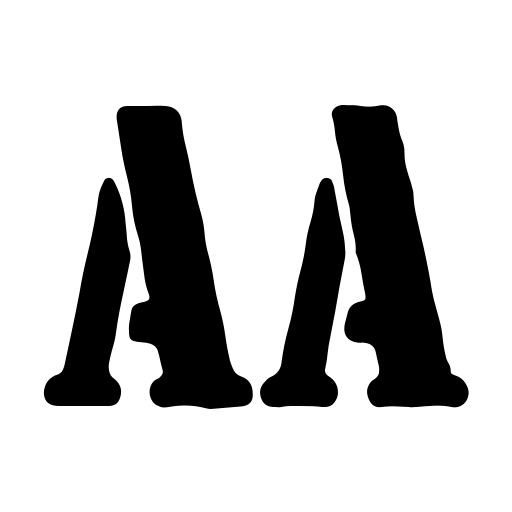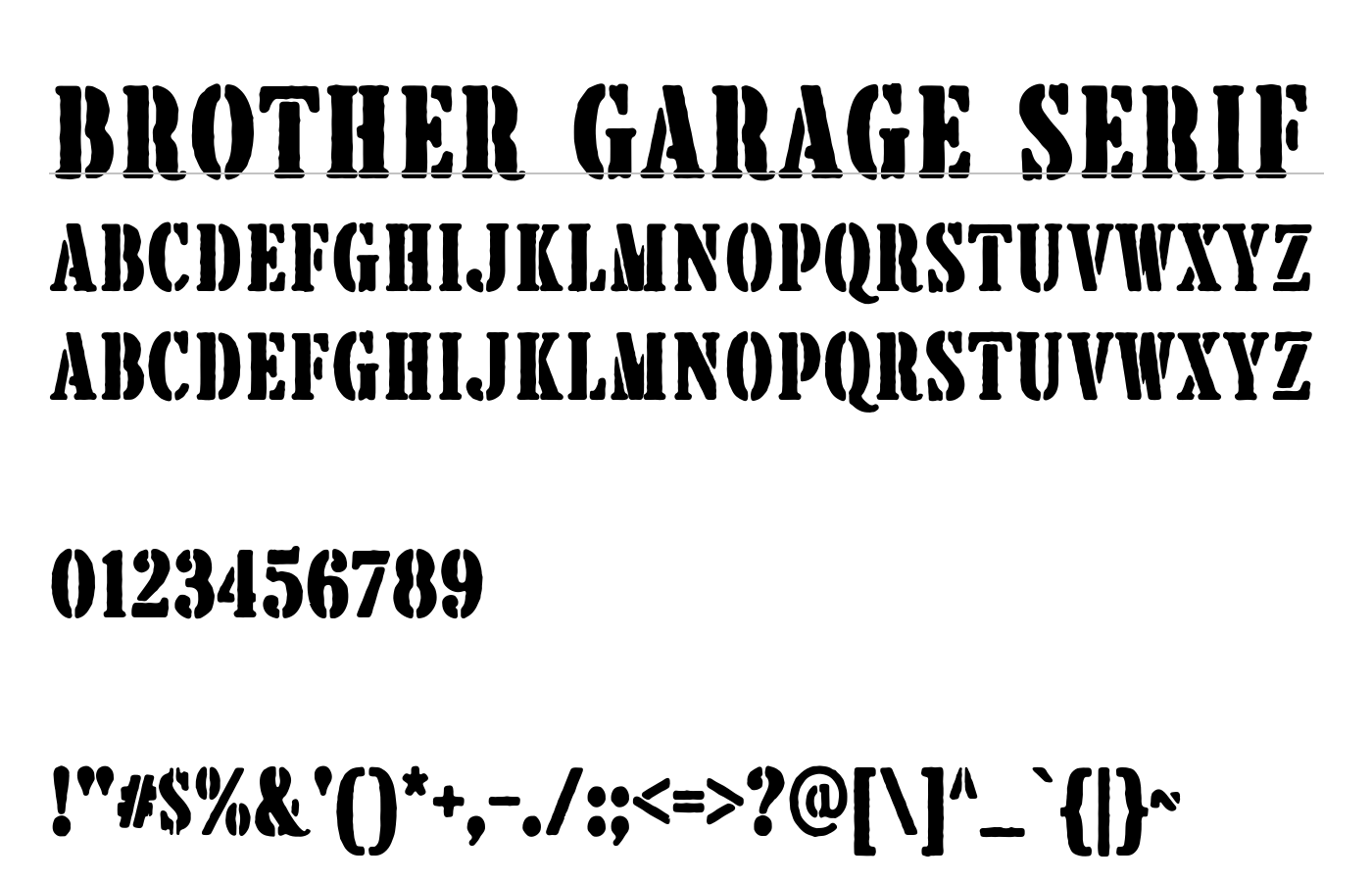
Brother Garage Serif is a bold, condensed serif font with a distressed, stencil-like style that gives it a strong, industrial, and vintage feel. Its high contrast between thick and thin strokes combined with worn edges makes it perfect for eye-catching headlines, posters, and branding projects that want to convey ruggedness and authenticity. This font works especially well for designs inspired by mechanics, vintage signage, or urban themes where a tough yet stylish look is desired.
Brother Garage Serif Font
About Brother Garage Serif Font
| Font family | Brother Garage Serif Font |
| Designer | Edi Gunawan |